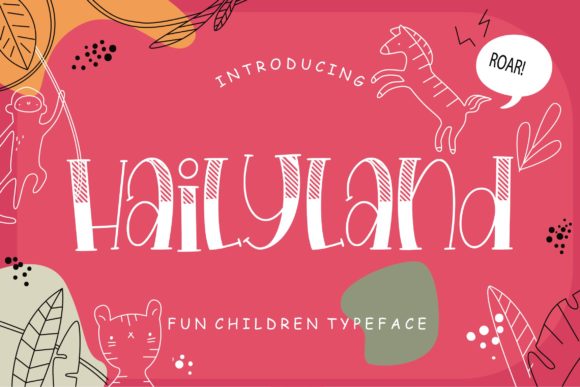
**Discover the Enchanting World of Hailyland: Where Imaginations Blossom and Creativity Soars**
Step into the whimsical wonderland of Hailyland, a display font that's a symphony of fun and finesse. Its enchanting characters dance upon the page, evoking a nostalgic charm that will leave your designs forever smitten.
With its playful spirit and childlike innocence, Hailyland possesses a captivating allure that's perfect for capturing the hearts of young and old alike. Whether it's illuminating children's books, adorning school projects, or adding a touch of whimsy to everyday creations, this font will bring a smile to every beholder.
So, embark on a creative journey with Hailyland, where imagination knows no bounds and your artistic visions come alive in vibrant and enchanting ways.
**Key Features:**
* A whimsical display font that exudes childlike charm
* Perfect for children's books, school projects, and playful designs
* Its enchanting characters will captivate imaginations and bring a smile to faces